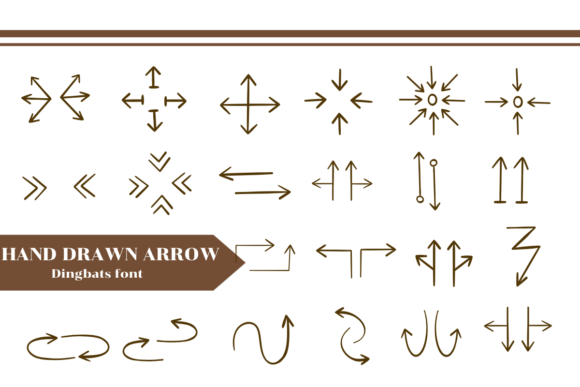
Unleash Your Creativity with Hand Drawn Arrow Font
You’ve spent hours pouring over inspiration boards, brainstorming ideas, and perfecting your craft. And finally, the moment arrives – you’re designing a wedding invitation, a custom logo, or a unique piece of home decor. The creative juices are flowing, but something’s missing. That’s where the Hand Drawn Arrow Font comes in – a charming dingbats font with a sketched style that adds a personal touch to your projects.
This versatile font is more than just a design element – it’s a way to express your personality and style. With the Hand Drawn Arrow Font, you can create one-of-a-kind designs that reflect your creativity and attention to detail. Whether you’re a seasoned designer or a DIY enthusiast, this font is sure to become your new go-to tool for bringing your ideas to life.
- Unique Characteristics: Features a hand-drawn, whimsical design with subtle arrow elements, adding a touch of playfulness to text.
Designer Review: Hand Drawn Arrow Font
Overall, I think the Hand Drawn Arrow Font is a charming addition to any design project. ✨ It’s perfect for creating a whimsical and playful feel that’s hard to resist. The font is highly versatile and can be used for a variety of purposes, from logos to signage to digital graphics.
- ✨ Charming and playful design that’s perfect for creative projects
- ✨ Highly versatile and suitable for a range of applications
- ✨ Easy to read and understand, even at small font sizes
- ⚠️ May not be suitable for formal or professional projects, due to its playful nature
- ⚠️ Can be difficult to use in situations where a more formal or serious tone is required
- ⚠️ May not be as effective in situations where readability is a top priority
Overall, I think the Hand Drawn Arrow Font is a great choice for designers who want to add a touch of personality and whimsy to their projects. While it may have some limitations, it’s a fun and creative font that’s sure to bring a smile to your users’ faces.
Use the Hand Drawn Arrow Font to create visually appealing graphics, such as infographics, presentations, and social media posts. Experiment with different colors, sizes, and styles to achieve the desired look.
The Hand Drawn Arrow Font is ideal for creating playful and engaging graphics, such as:
- Infographics
- Presentations
- Social media posts
- Blog posts
- Marketing materials